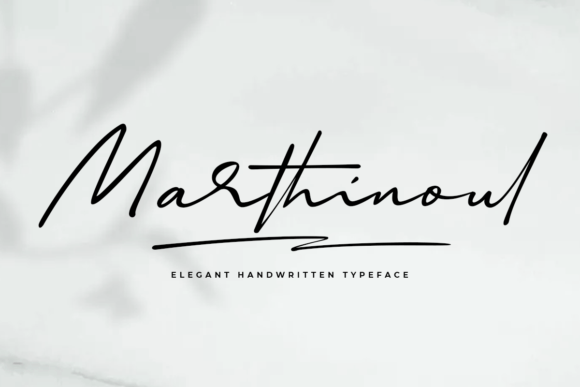
Step into the Realm of Marthinoul: A Font Crafted to Ignite Creativity
In the vast digital landscape, where visual expression reigns supreme, typography holds the power to captivate, inspire, and leave an indelible mark. Among the myriad of fonts that grace our screens, Marthinoul emerges as a radiant star, a script font that embodies elegance, charm, and boundless creative potential.
Marthinoul, a brainchild of the talented fontkong, is a modern and classy handwritten font that transports your designs to a realm of sophistication. Its fluid strokes, delicate curves, and enchanting ligatures weave a captivating tapestry of visual intrigue, leaving a lasting impression on the beholder.
Crafted with meticulous attention to detail, Marthinoul shines as a versatile masterpiece, adapting seamlessly to a diverse range of design projects. Whether you're crafting heartfelt wedding invitations, expressing gratitude with thank you cards, spreading warmth with greeting cards, or forging a unique brand identity with logos, Marthinoul stands as your steadfast companion, ready to elevate your creations to new heights of visual splendor.
What sets Marthinoul apart is its versatility, its ability to adapt and enhance any design concept. It's a font that speaks to the heart, evoking emotions and creating a lasting connection with your audience. With Marthinoul, your words and designs transcend the ordinary, becoming captivating expressions of your creative vision.